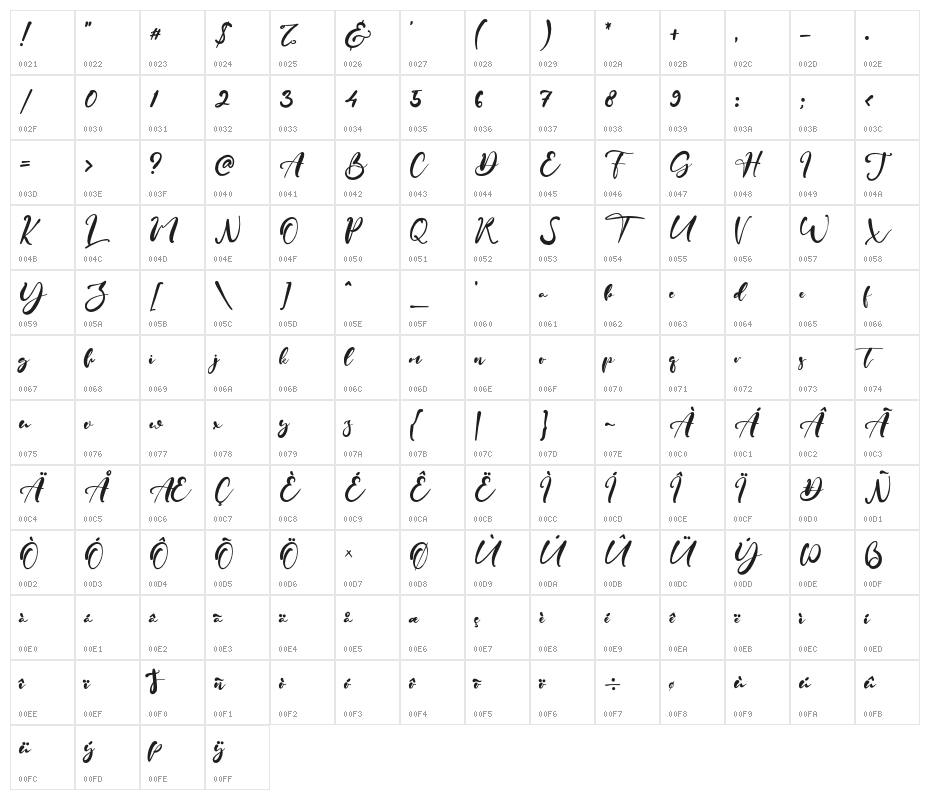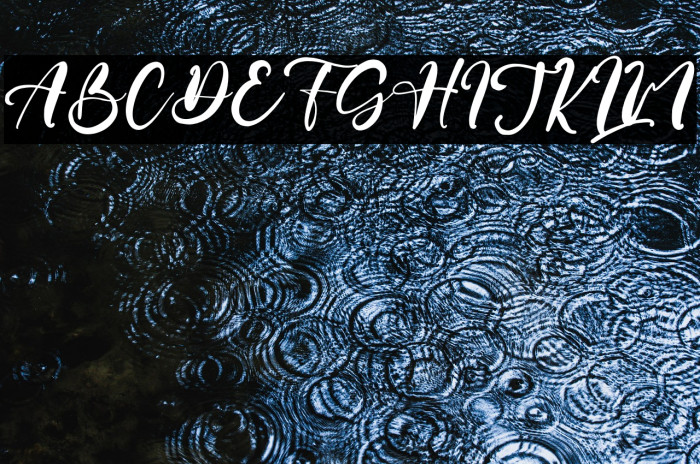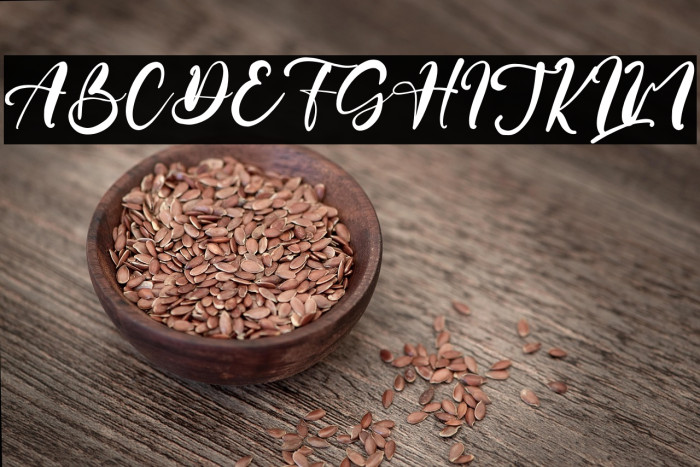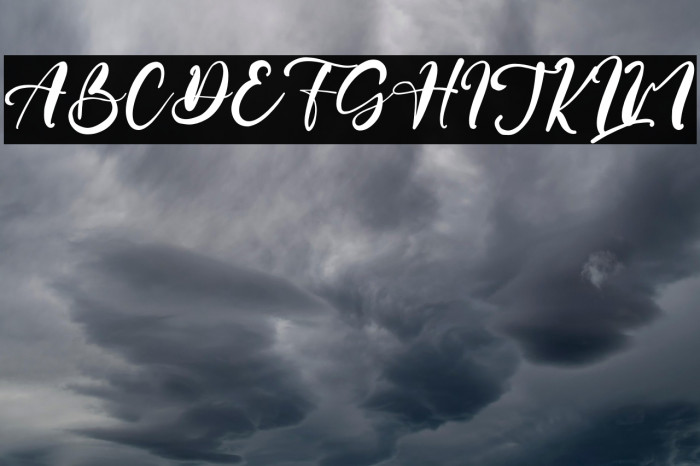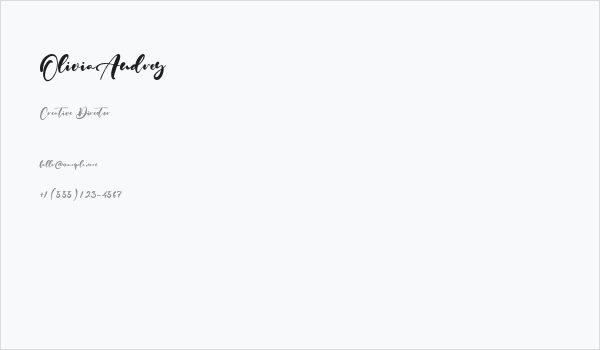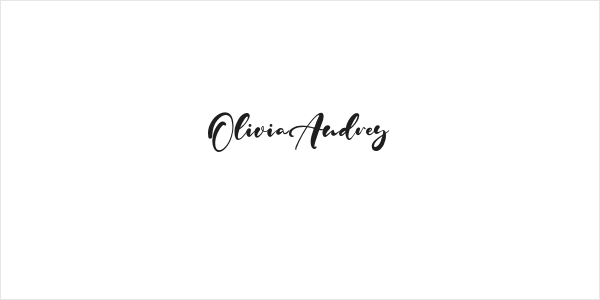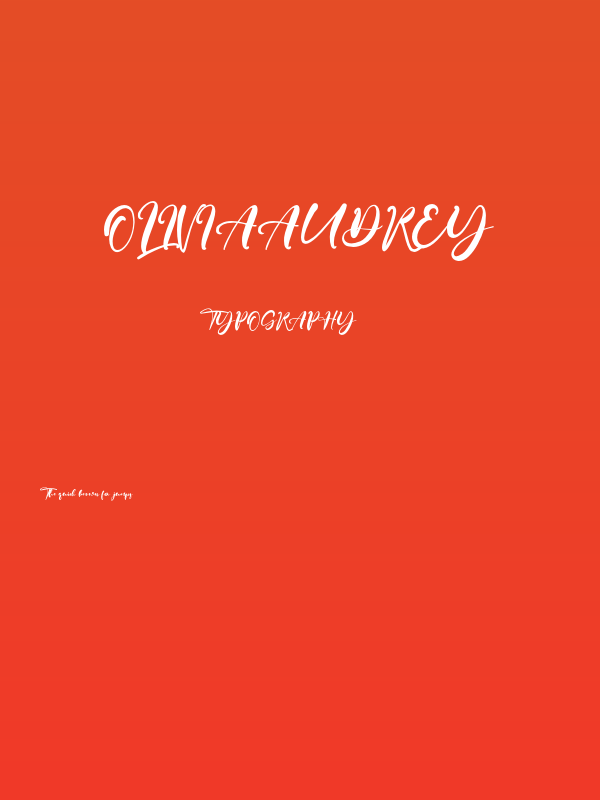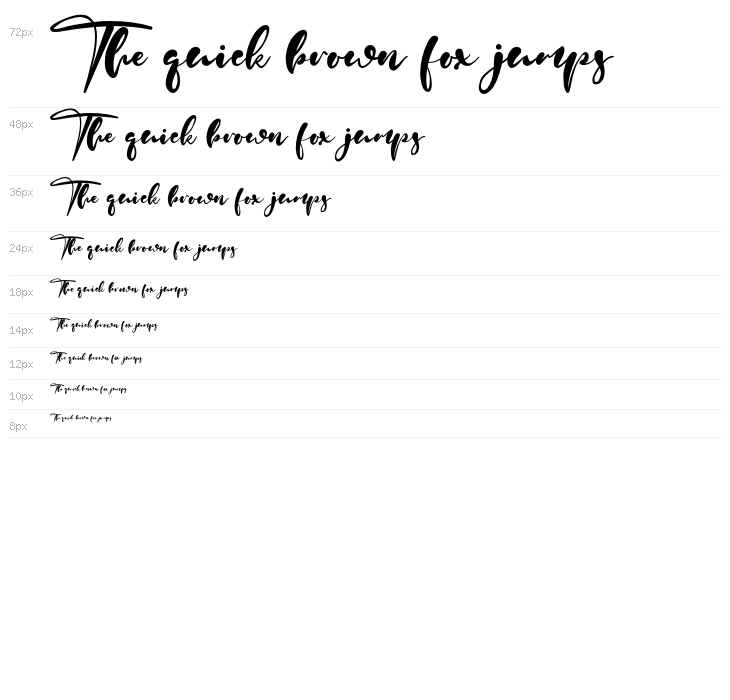
OliviaAudrey Font
OliviaAudrey Description
This font features an elegant and flowing script style, characterized by its smooth, cursive letterforms that exude a sense of sophistication and grace. The uppercase letters are bold and slightly slanted, with intricate loops and swashes that add a decorative flair. The lowercase letters maintain a consistent flow, with some characters extending below the baseline, enhancing the font's dynamic appearance. The numerals are styled to match the cursive theme, providing a cohesive look across all characters. Special characters are thoughtfully designed, complementing the overall aesthetic. This font is perfect for projects that require a touch of elegance and creativity.
| Overall Style | Elegant, Decorative |